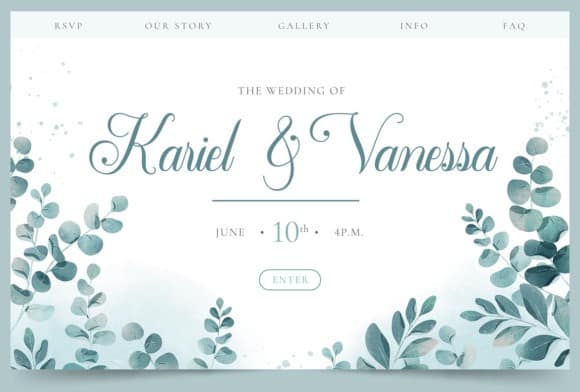
Angelina Calligraphy Font
Angelina Calligraphy Font, designed by Sealoung is a stylish modern calligraphy font, described by an distinct touch, ideal for your favorite projects. It is perfect for branding, wedding invites and cards, and label product.